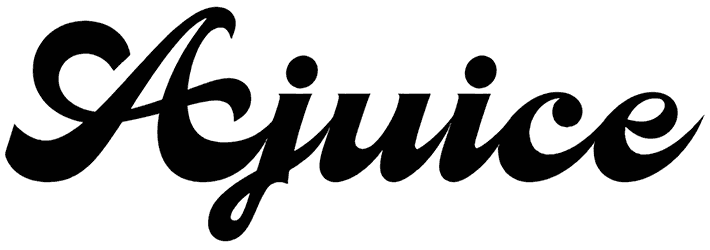
Good Faster is an old school font whose characters look like musical notes and are able to deliver a feeling of momentum, drama, joy, or vitality.
Aside from not supporting numbers, this lovely 70s font can boost the efficiency of your blog posts, digital banners, product packaging, video game brochures, or magazines. If you need more fonts in the same category, don’t forget to check out the RB archive for more products.